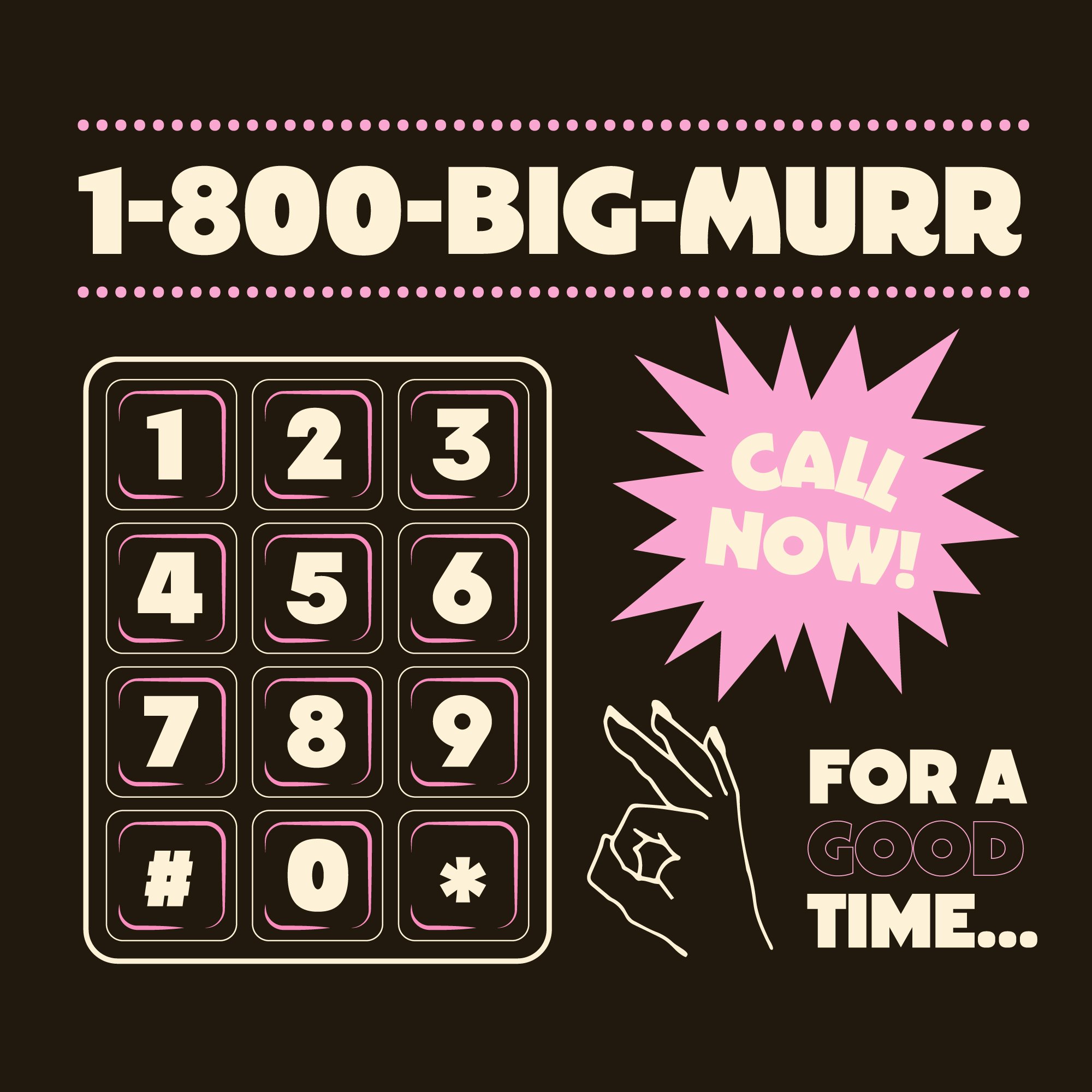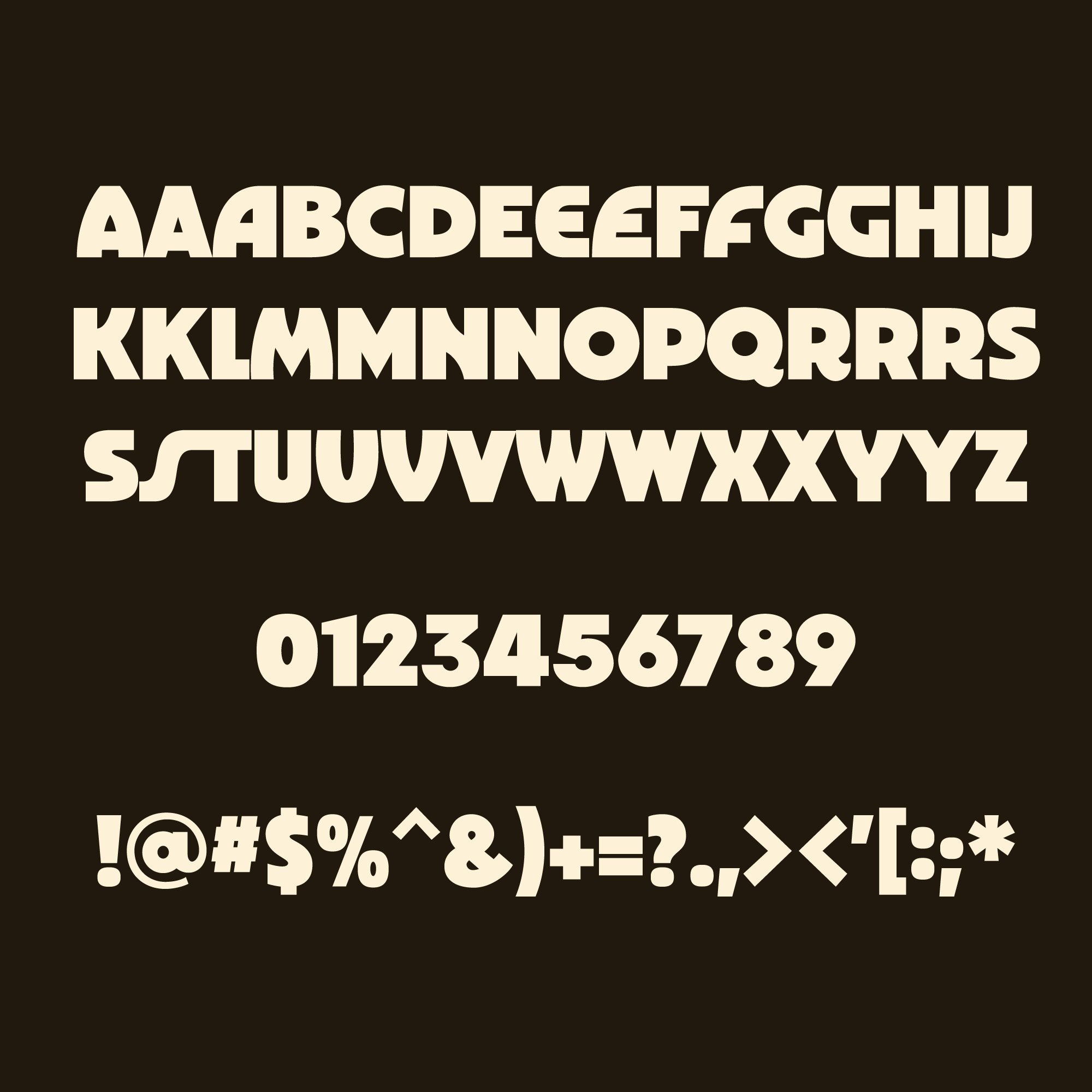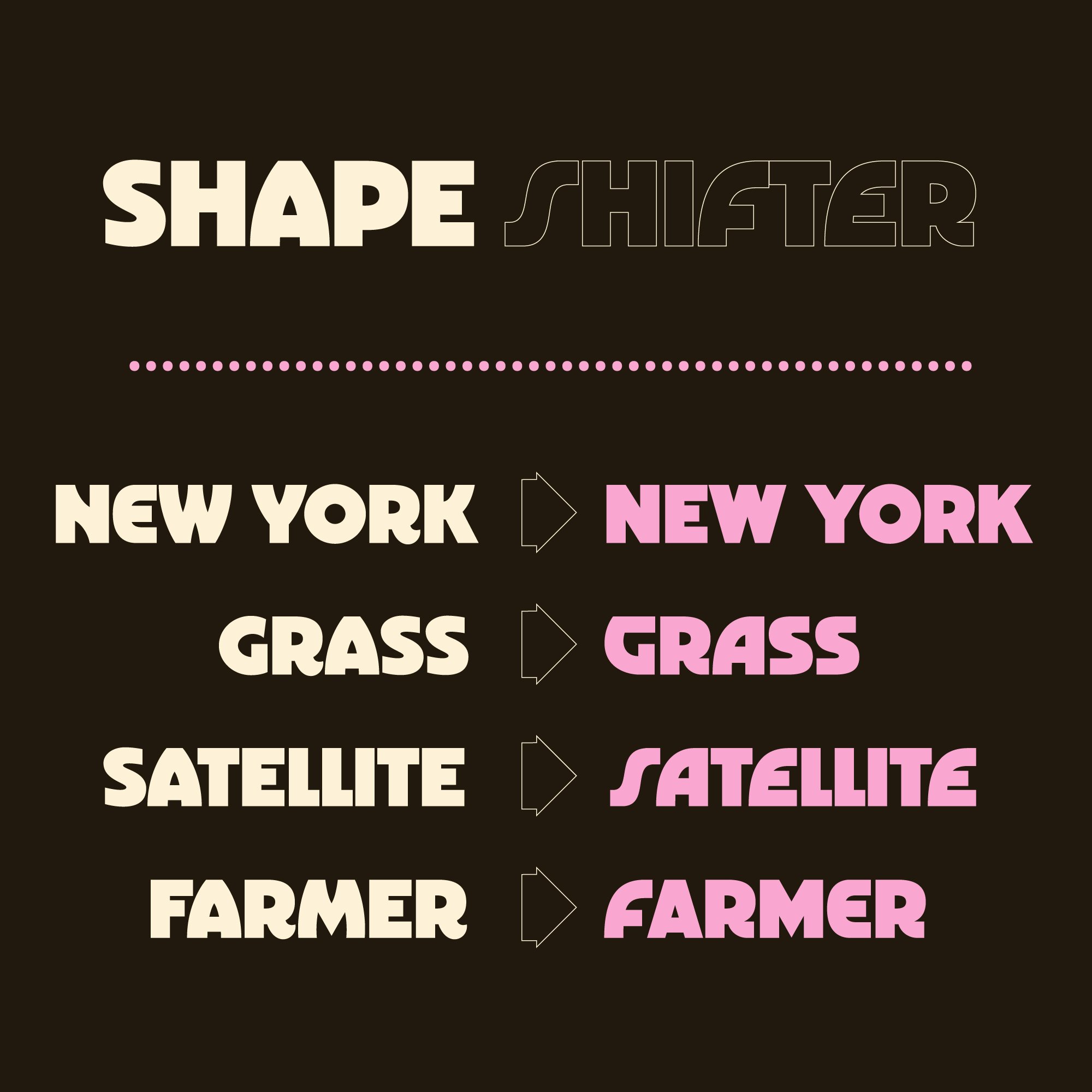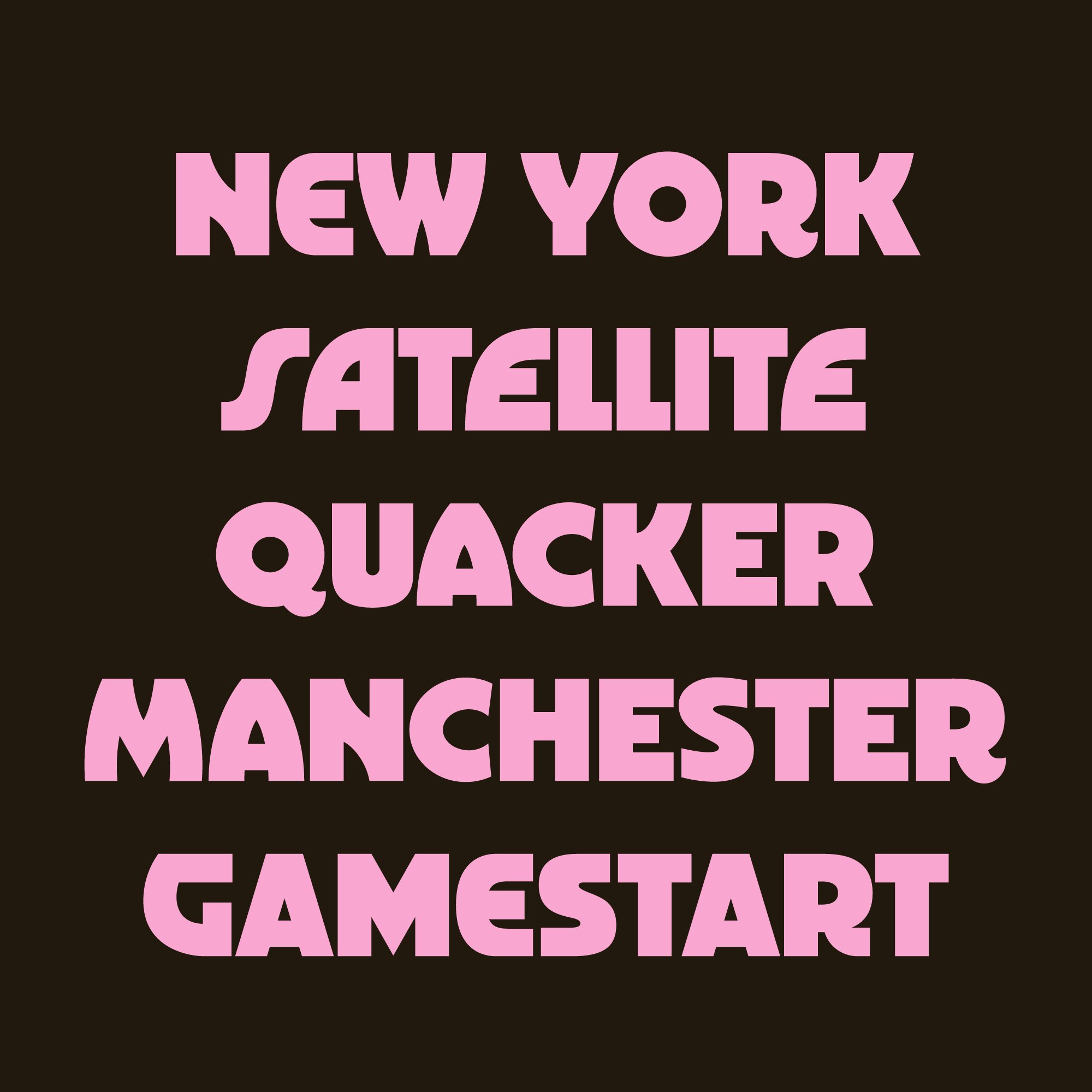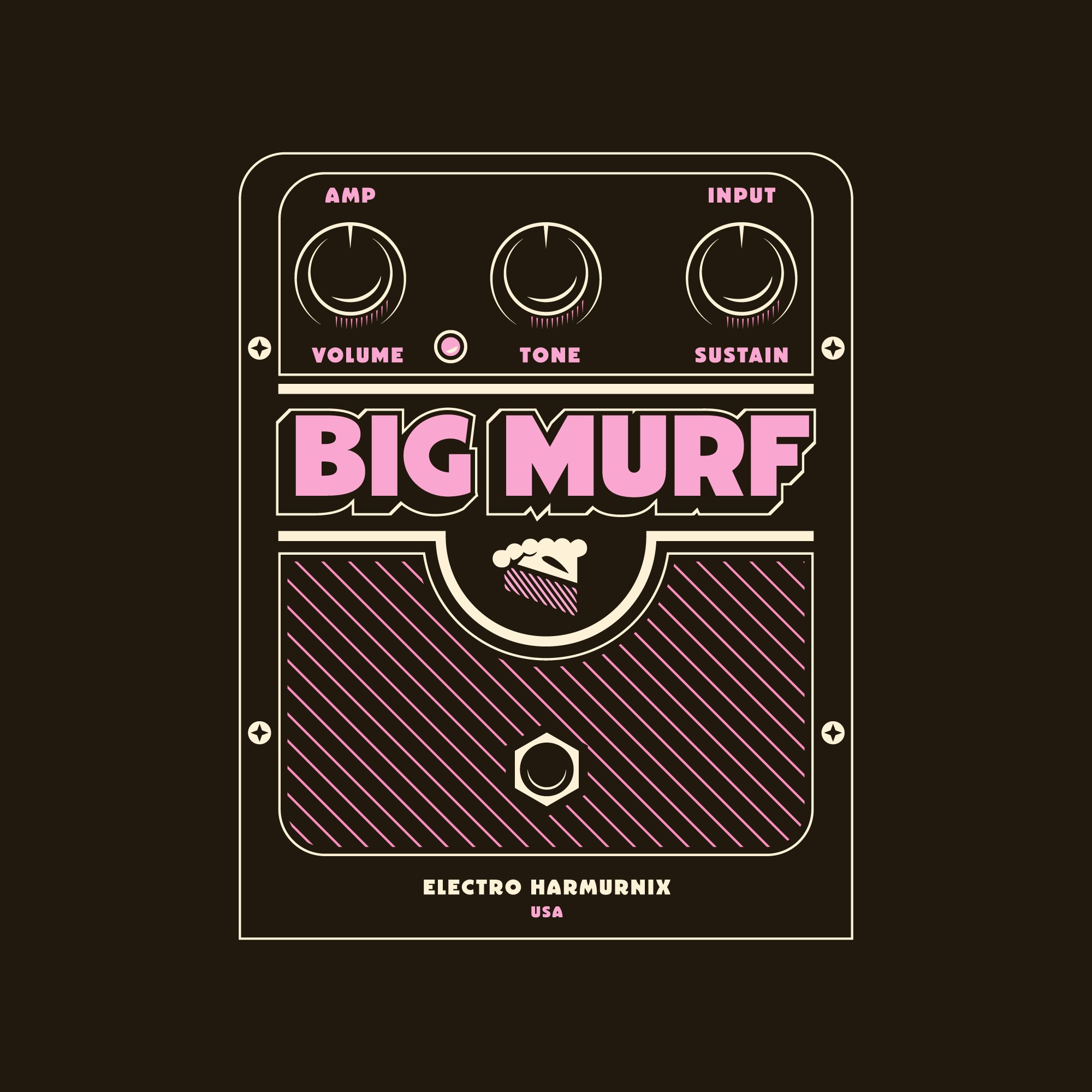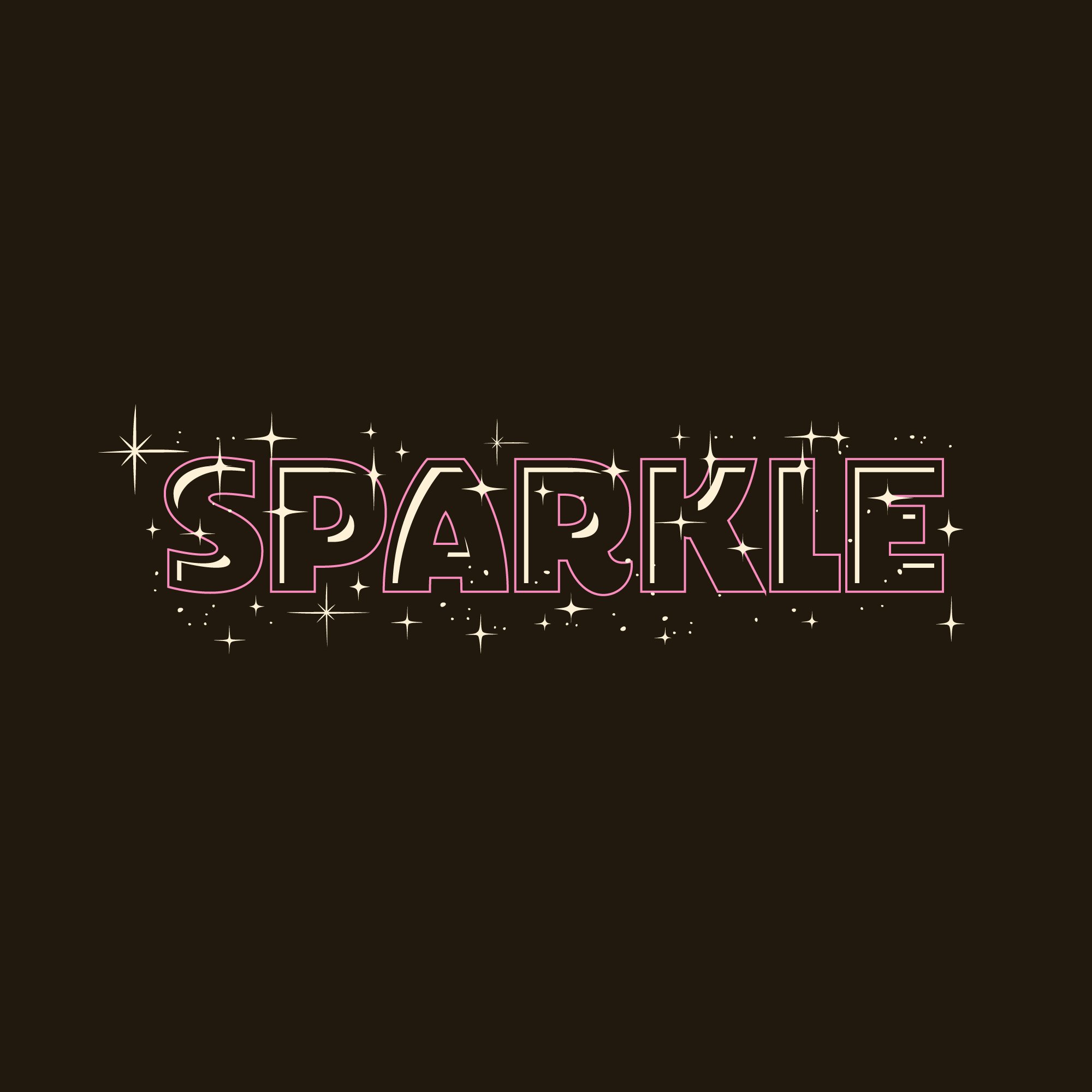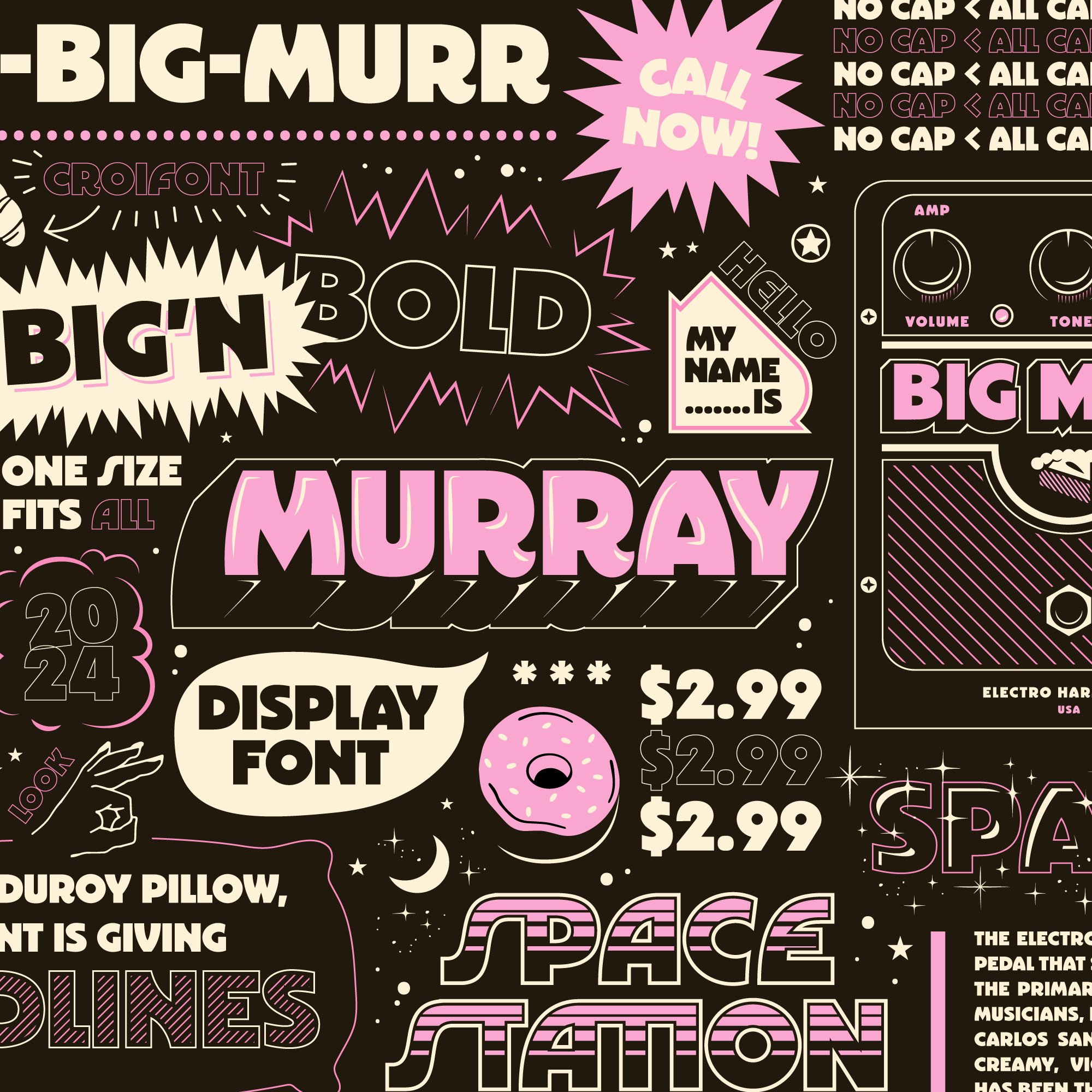
Murray is a chonktastic, densational, heftabulous, one-size-fits-all typeface designed to take up space. Its curated alternate library allows it to shape shift from approachably playful to retro sci-fi. It can hold a modern geometric elegance at any fine dining table, before unbuttoning the top button of its pants, releasing the curves and getting COMFY.